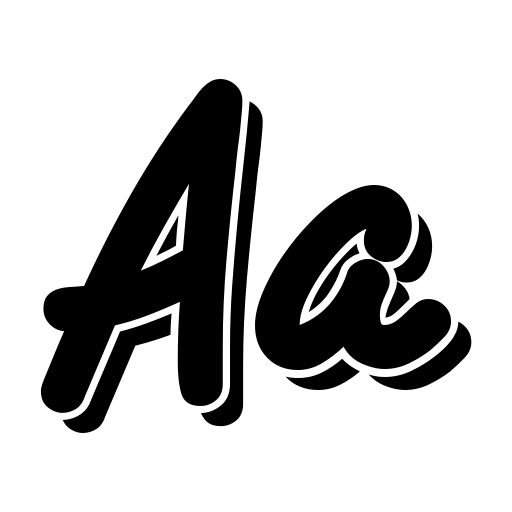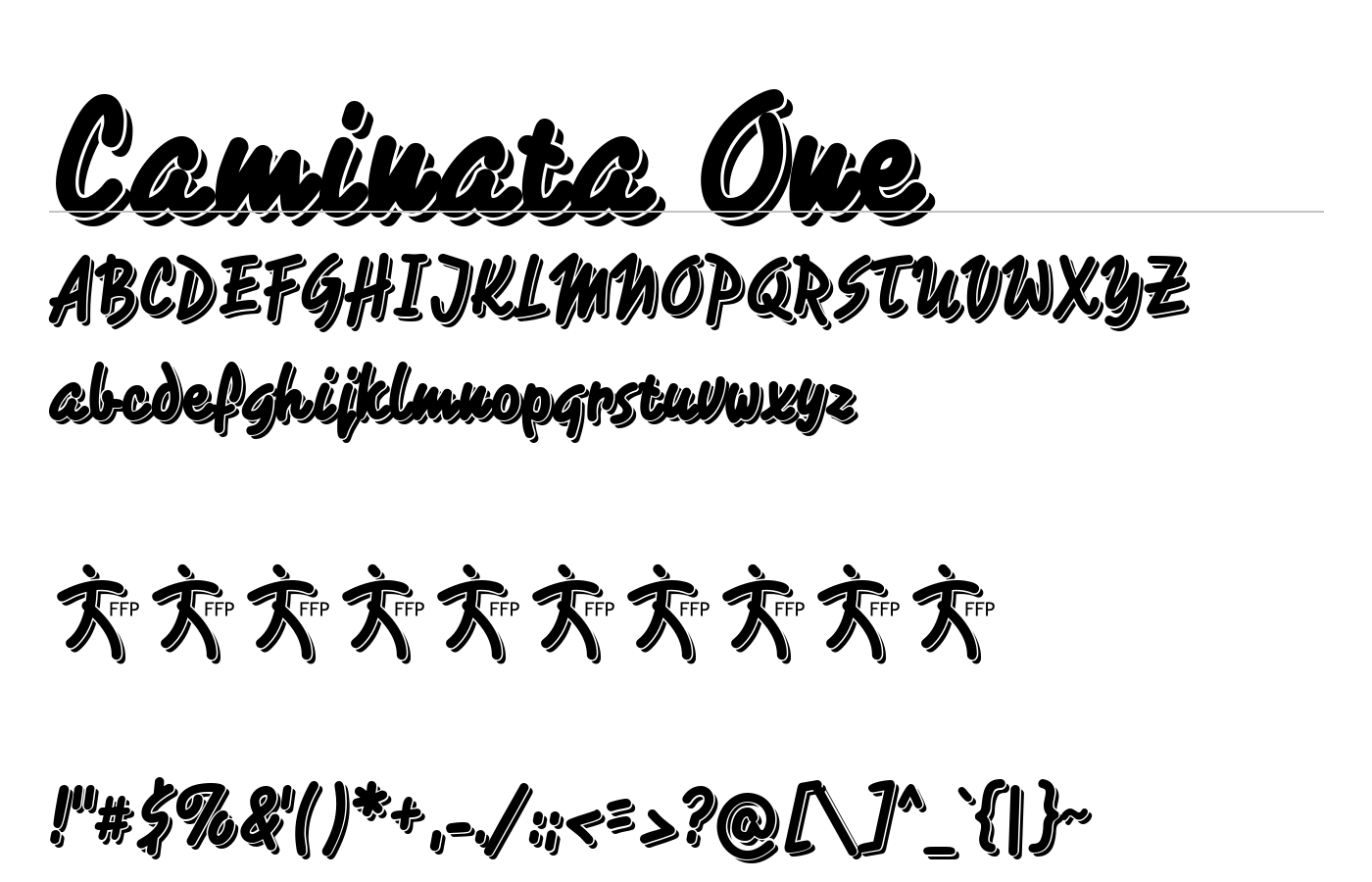
Caminata One is a bold, playful script font with a strong hand-drawn feel, characterized by its thick, rounded strokes and lively, casual shapes. Its slightly condensed letterforms and consistent weight make it highly readable, while the distinct shadow effect adds a fun, dynamic personality. This font works great for eye-catching headlines, logos, and branding that aims to convey friendliness and energy.
Caminata One Font
About Caminata One Font
| Font family | Caminata One Font |
| Designer | deFharo |